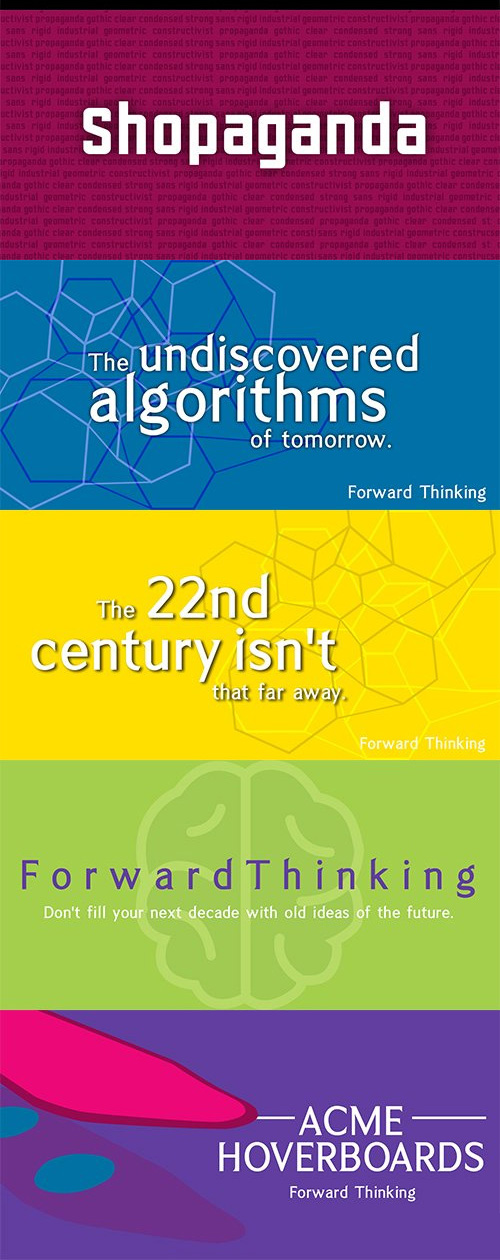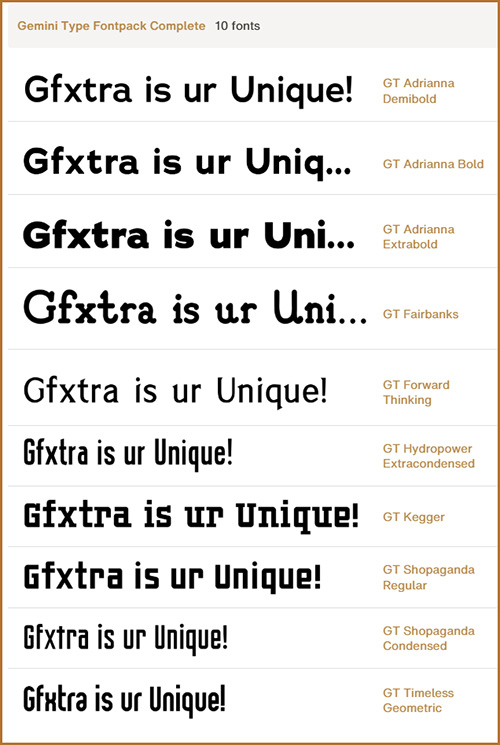
- Chank Co is proud to introduce the new “Gemini Type Fontpack,” a collection of ten fonts available for use on your desktop computer or web pages, but also optimized for use as exterior cast-metal signage in bronze or aluminum in collaboration with Gemini, a family-owned industry leader in the wholesale manufacture of dimensional letters, logo and plaques based in Cannon Falls, MN. Gemini collaborated with Chank Co to assemble a line of fonts that would work well as dimensional, cast-letter signage for use on the sides of buildings, in stores, and other public spaces.
The fonts included in the “Gemini Type Fontpack” are reinterpretations of previous Chank Fonts, now optimized for dimensional signage display, but then also repackaged and presented for your use as an OpenType desktop computer font collection: GT-Adrianna DemiBold This is a multi-purpose collection of heavy-lifting fonts to convey your message strong and clearly, full of legibility and clarity, but also displaying personality and distinction. You can purchase and download these fonts in OpenType format for your desktop computer right now via MyFonts. Get it today and you''ll also get a great introductory special sale price. These exclusive typefaces are also available as dimensional letters, manufactured by Gemini in bronze or aluminum, from 6" tall up to 18" tall, with a variety of finish options, for use in public signage and wayfinding systems. Gemini manufacture their products in 20 plants through out the US, Canada and Mexico, and all their products are backed by a lifetime guarantee. Chank Co is excited to offer these ten strong, industrial font designs in durable cast metal format via Gemini. ----- More about the fonts in the Gemini Type Fontpack: GT-Adrianna DemiBold, Bold, and Adrianna ExtraBold Clear, invisible, no-nonsense, multi-purpose. A versatile sans-serif heavy-lifting font family. GT-Fairbanks Vintage, silent film, speedball, old-timey, old-fashioned, retro. Based upon the lettering in the 1914 silent film, “The Good Bad Man.” GT-Forward Thinking Futuristic, semi-serif, clean, distinctive, contemporary, idiosyncratic. A font for tomorrow and the future. GT-Hydropower ExtraCondensed Extra-condensed, compressed, strong, rigid and concise. GT-Kegger Strong, sporty, collegiate, athletic. Nothing says “GO TEAM” quite like a big, bold slab-serif font. GT-Shopaganda and GT-Shopaganda Condensed Industrial, geometric, constructivist, propaganda, oh there’s so much to love about the strength and clarity of these two fonts. Based on Chank’s Liquorstore and Nicotine fonts, which have been married and unified here, with a few new twists and turns to their letterforms. GT-Timeless Geometric Bauhaus, anyone? The geometric and minimalist alphabet here is about as clean and straight-forward as a semi-condensed sans can get. ----- All of the fonts in this package are available individually, or save money when you purchase all ten of them as a collection. Download this digital font package from MyFonts today and you''ll receive both OpenType and TrueType formats in your download for your desktop computer. Webfont format is also available.
GT-Adrianna Bold
GT-Adrianna ExtraBold
GT-Fairbanks
GT-Forward Thinking
GT-Hydropower ExtraCondensed
GT-Kegger
GT-Shopaganda
GT-Shopaganda Condensed
GT-Timeless Geometric.